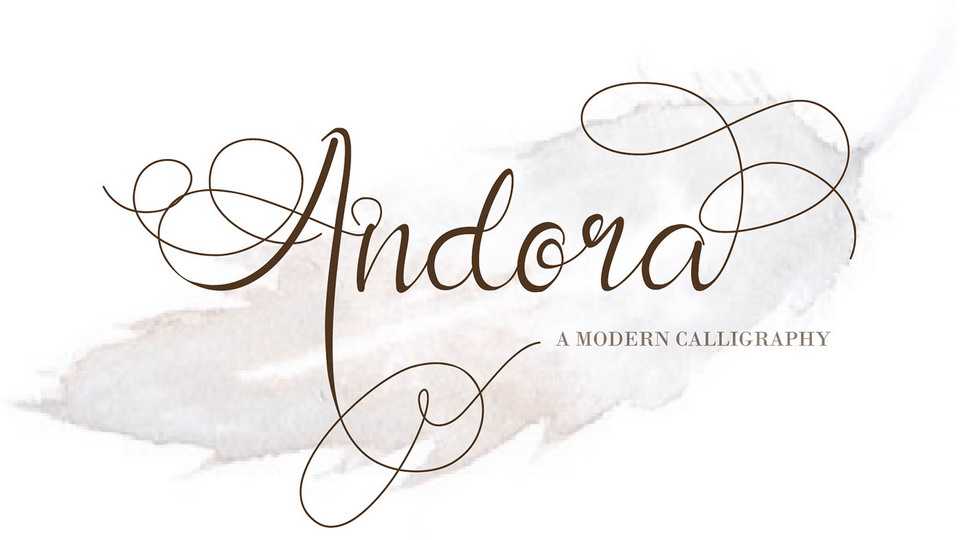
Download Andora font, a beautiful, full-featured modern calligraphy script with tons of alternate characters and OpenType features. Andora is particularly well-suited to invitations, branding, and editorial design.
Designer: Thomas Aradea